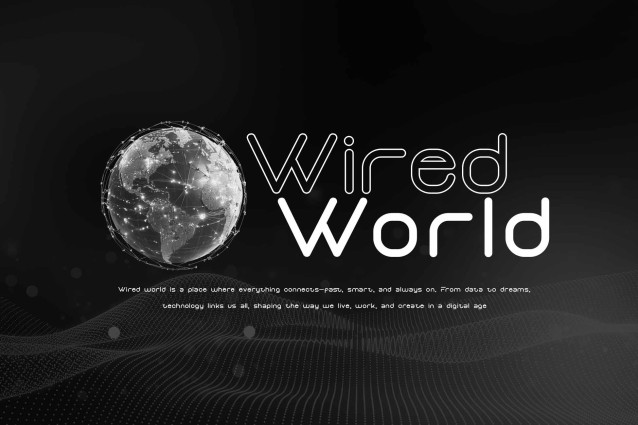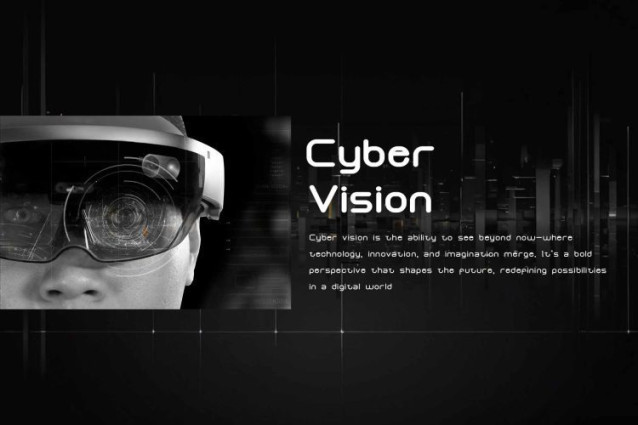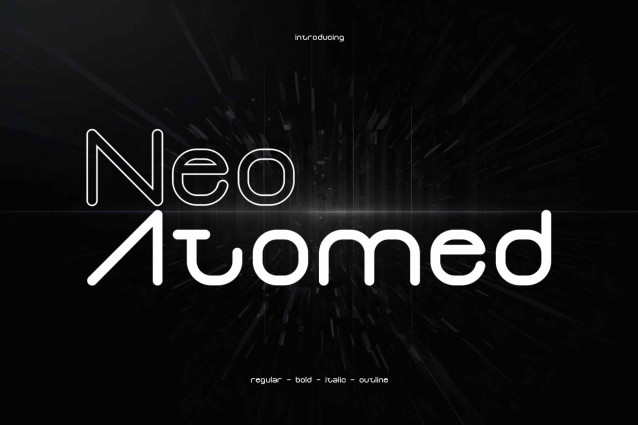
Neo Atomed Font
Neo Atomed Font is a display font with Futuristic Feel. suitable for events, logotypes, Sci-fi stuff, modern & futuristic vibe, social media, products, and so on. contains standard English letters, numbers, punctuation, ligature, and several accents that support multilingualism.